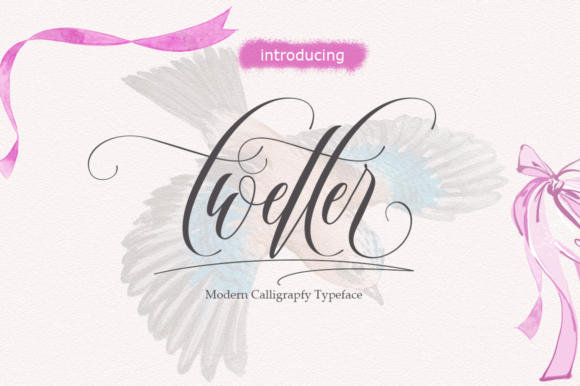
Introducing Twetter Font – the perfect font for adding a touch of elegance and sophistication to any design project. Whether you're a designer, DIY enthusiast, or looking for the perfect font for wedding signs, Twetter is sure to impress.
Created by Groens Studio, Twetter is a beautiful script font that is inspired by classic typography, yet it brings its own unique style and flair to any project. With its flowing and graceful lines, Twetter is the ideal choice for those looking to add a touch of romance and charm to their designs.
If you're looking for a font that is both versatile and eye-catching, then Twetter is the font for you. With its elegant and stylish script, it is the perfect choice for wedding invitations, signage, and even social media posts. Twetter's handwritten style adds a personal touch to any project, making it truly one of a kind.
So why should you choose Twetter Font? Because it is the best font for wedding signs, and much more. With its classic yet modern style, it is the perfect choice for any project that requires a touch of elegance and sophistication. Download Twetter Font today and turn your creative ideas into a true work of art.